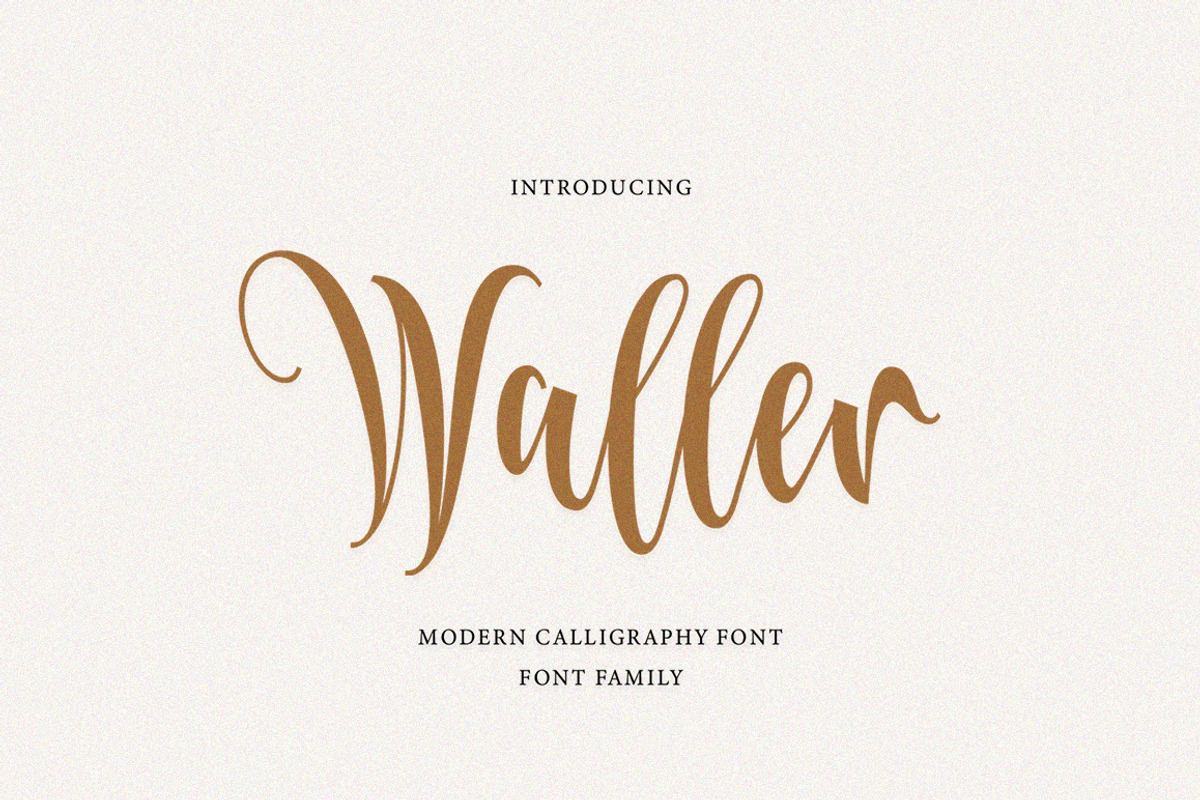
This elegant and modern font is perfect for a variety of design projects. With its stylish curves and distinctive letterforms, Waller Font Free Download will elevate any creative piece, from logos to web design. Whether you're working on a digital or print project, this font’s versatile design makes it an excellent choice for both personal and commercial use.
Waller Font Free Download is especially useful for those looking for a clean, contemporary typeface with a touch of sophistication. It's a great fit for branding, marketing materials, social media posts, and much more. Its smooth, legible design ensures that your message will be clear and impactful, whether in headlines or body text.